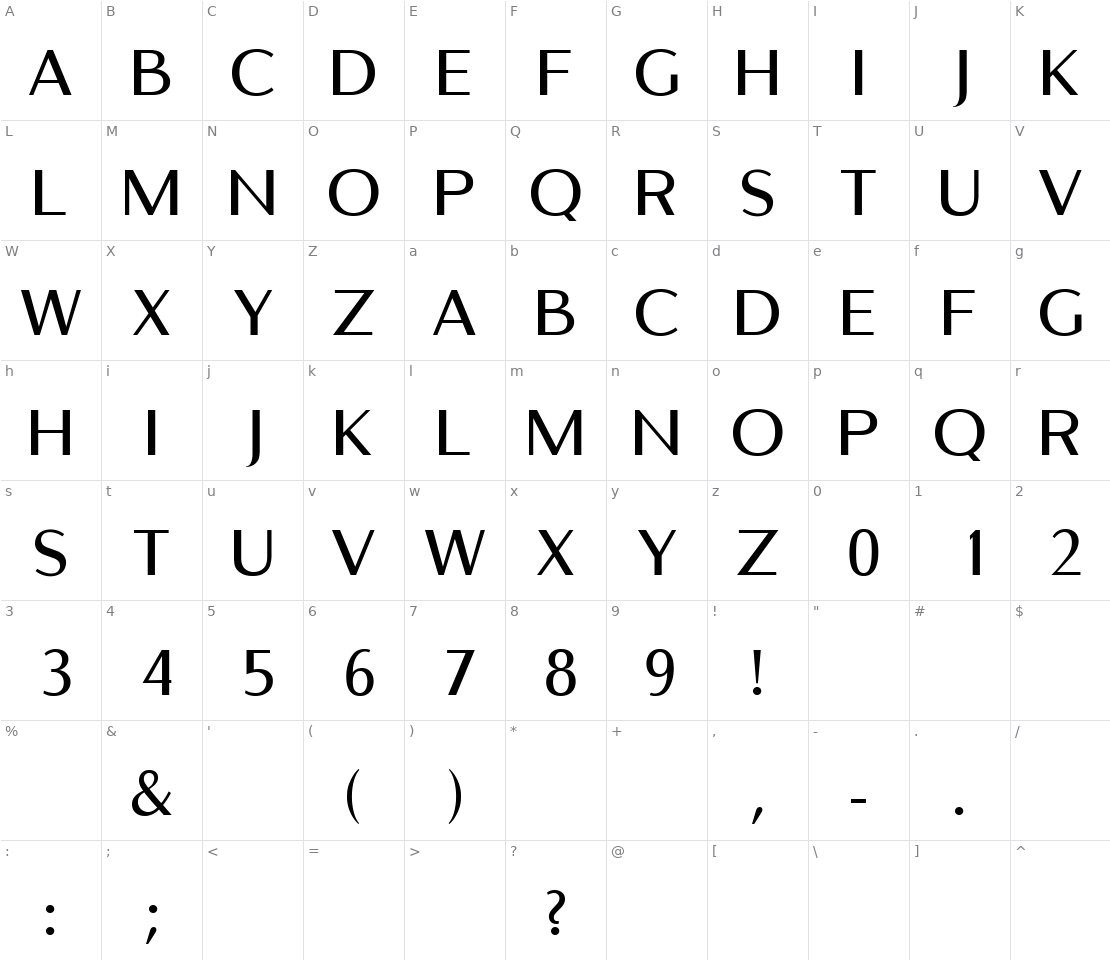
Bellet
by HENRIavecunK
Bellet is a refined transitional serif from HENRIavecunK with clean, elegant uppercase letterforms and the kind of measured contrast you'd expect from classical French typography. The proportions feel formal without being stiff, making it a strong choice for headlines, monograms, and branding that calls for quiet authority. Its uppercase-only character set keeps things deliberate and structured.